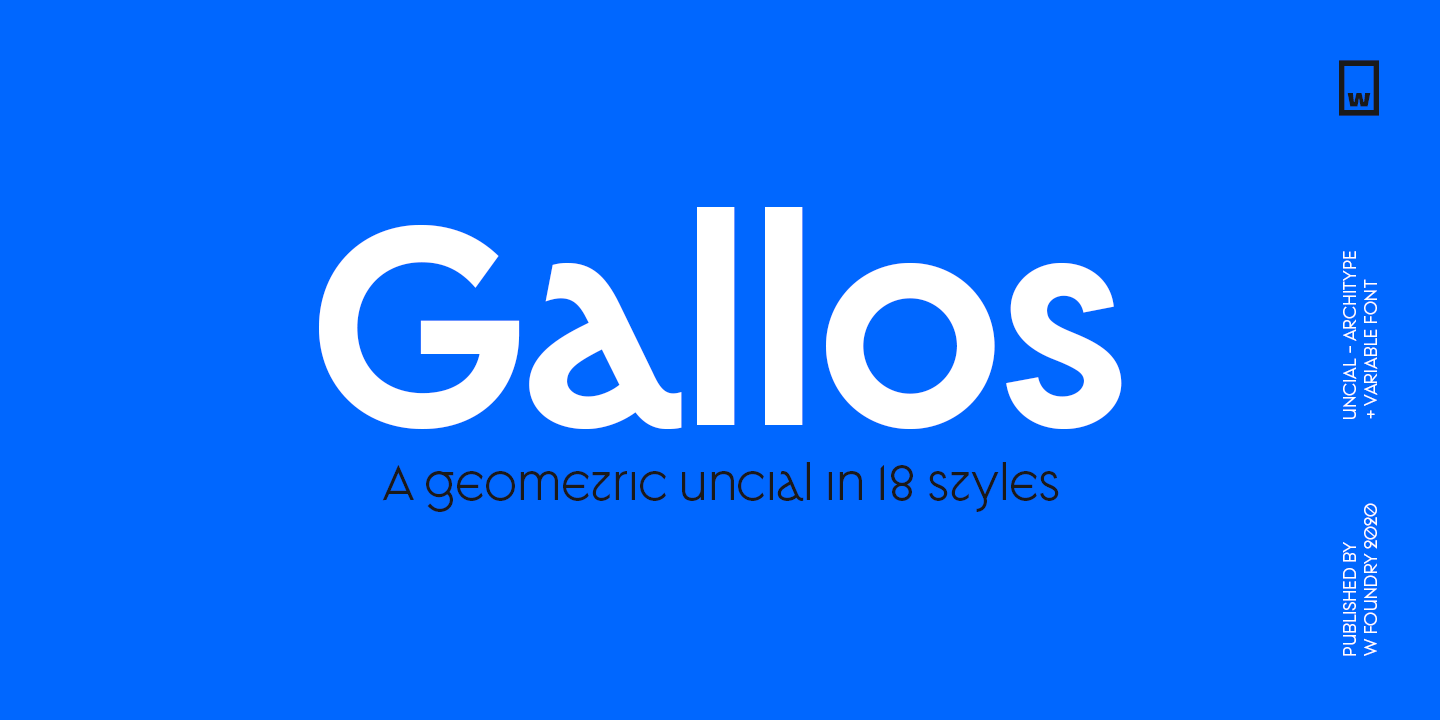
Gallos Font is ideal for Latin American restaurant branding, rooster-themed farm logos, morning coffee shop signage, breakfast diner menus, rural agricultural business materials, and traditional poultry farm packaging.
Gallos Font is exciting because it captures the proud spirit and dawn-breaking energy of roosters, delivering a bold typeface that embodies confidence, agricultural heritage, and the vibrant awakening of each new day.
The Gallos Font family includes spirited variations: Gallos Light, Gallos Regular, Gallos Bold, textured alternates, and decorative elements inspired by traditional farmyard aesthetics and Latin American folk art.
Rise with the dawn using Gallos Font Free Download, a spirited typeface that brings farmyard pride and agricultural authenticity to your most energetic design projects. This confident font excels in creating memorable branding for organic farms, country breakfast restaurants, artisanal egg producers, and rural tourism ventures that celebrate traditional farming life and farm-to-table cuisine. The boldly crafted letterforms feature strong vertical emphasis and proud character shapes that simulate the confident posture of roosters greeting the morning sun while ensuring excellent readability across all agricultural applications. Perfect for farmers market signage, rural bed-and-breakfast materials, traditional cooking shows, and agricultural fair promotions that need to communicate authenticity and farm-fresh quality, this font connects with audiences who value honest farming traditions and sustainable agriculture. Each character crows with morning energy, making every message feel like a triumphant announcement of fresh beginnings and wholesome country living. Gallos Font transforms rural communications into proud declarations that celebrate the hardworking spirit and natural rhythms of traditional farm life.